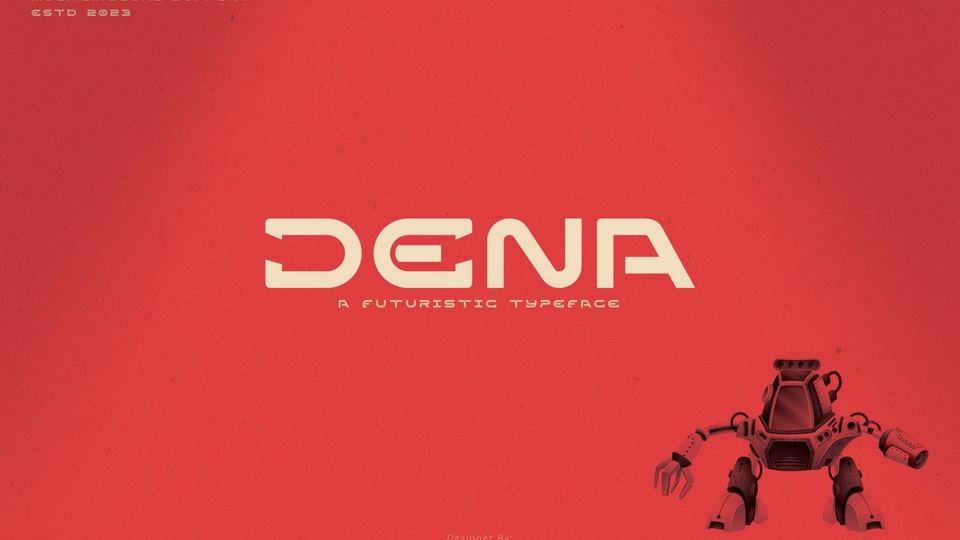
Download Dena font, a futuristic typography that melds together future aesthetics and modern design. Designed for the cutting-edge designer, Dena font is more than simply a font style—it’s a design language.